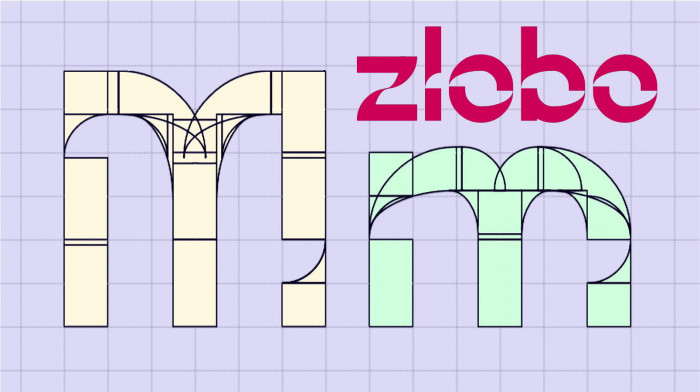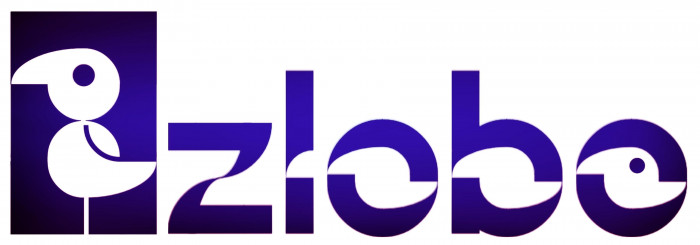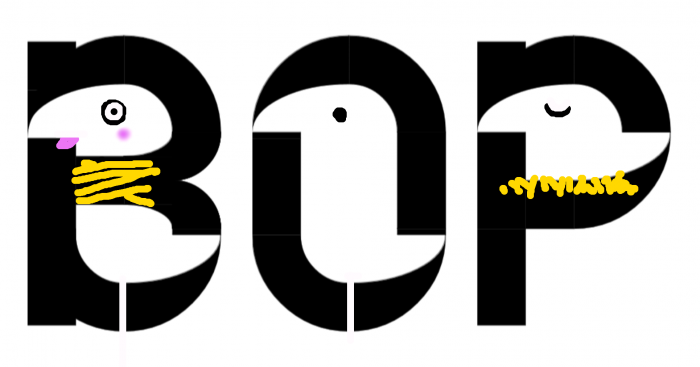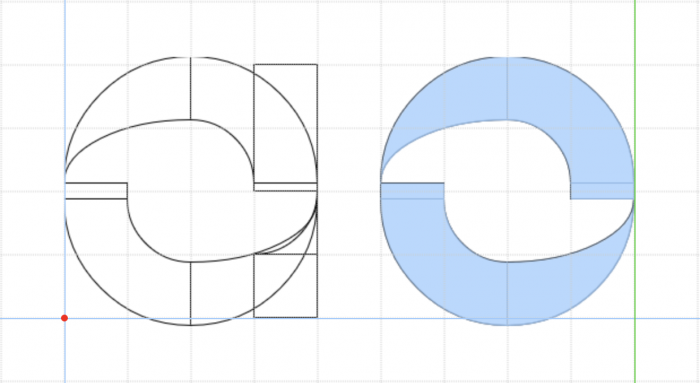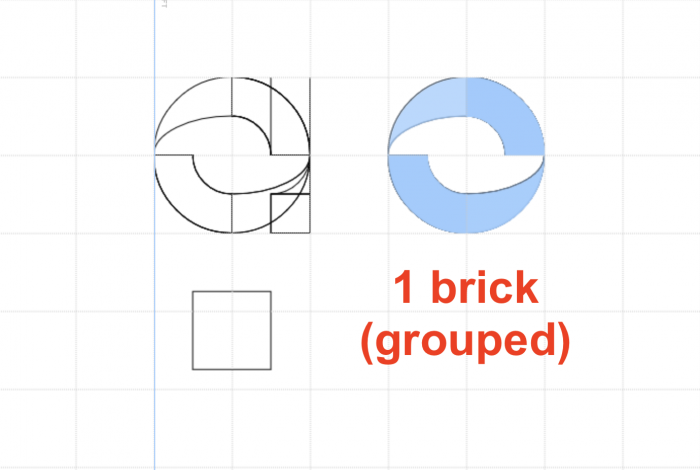
Nice! Did you by chance take inspiration from my Rem and your own ztripping?
What a cuty bruva! Nice text mashup too! 😇
@frongile: Yes and no, because the font came to me in a careless and semi-unconscious way, and the only thing I had in mind was that it didn't look too similar to either of the two you mentioned. Things about each person's creative methods. Thank you for your always kind comments!
Lovely font, especially the little bird motif~
@tortoiseshell: Glad you like it! Thank you very much. The silhouettes of the little birds are a consequence of the negative space, it was fun for me to use them as a humorous note.
Congratz my friend, I have one complaint about this font tho, A & B look like a strapped down bird, thats not very animal friendly! 🤣
@Sed4tives: 🤔🤣🤣🤣 Now you can really say that my head is full of birds...
This font looks pretty nice. I wonder how you made the small a and o glyphs?
@BWM: Thanks for your kind words. There are no secrets with these letters (they are actually the simplest).
When I said small o and a, I was talking about the superscript versions (ordinal indicators)
@BWM: Sorry, Brian. I grouped the four bricks for the "o" and added the other smaller ones for the "a".
Clean with a playful twist and some lovely details!
My lord, you created such a beautiful bird-look font with just 4 bricks of x-height and 6 bricks for the uppercase??? This is incredible to me!!! You must have spent so much time to do this.
@Kiên Trung (trungdangTrung Kiên): Thank you very much and glad you like it! Honestly, it was a little more than four bricks (but not too many either).
This reminds me of the old Microsoft Edge logo